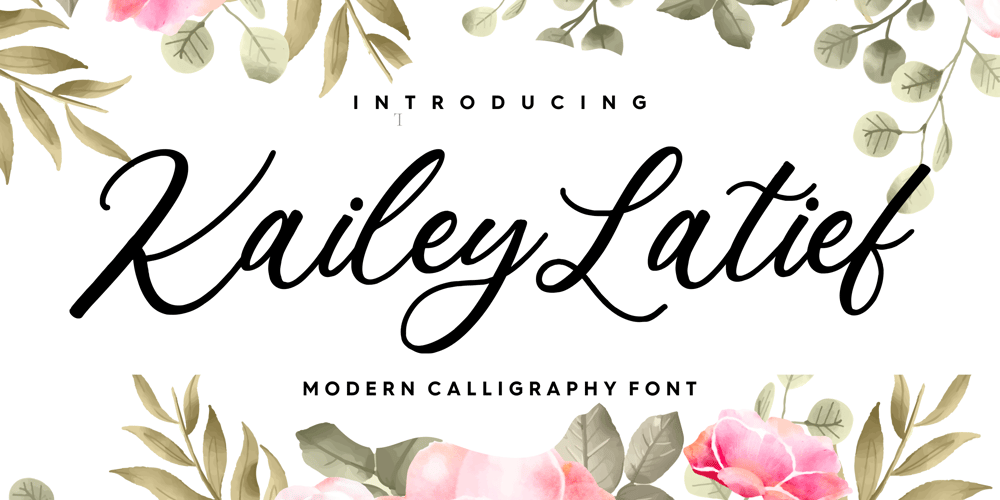
Kailey Latief
Kailey Latief font
Kailey Latief Font Family was designed by Restu Angga and published by Balpirick. Kailey Latief contains 1 styles and family package options. Kailey Latief is a sweet, soft hand-lettered handwritten font. Fall in love with its authentic feel and use it to create gorgeous wedding invitations, beautiful stationary art, eye-catching social media posts, and cute greeting cards.